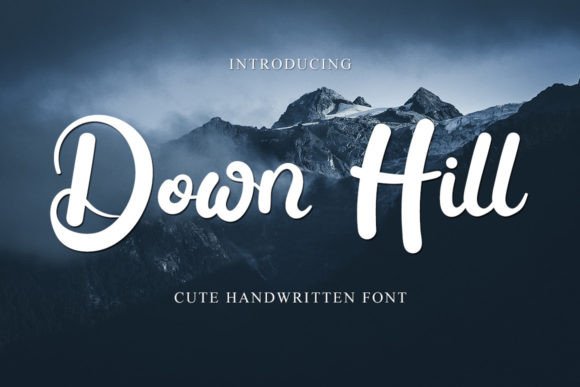
Prepare yourself to be captivated by Down Hill, an extraordinary script font family that exudes elegance and grace. With its fresh, clean, and refined appearance, Down Hill is a versatile font that will elevate any project, whether formal or informal. Created by the talented Eddygoodboy, this remarkable font is a true masterpiece that will add a touch of sophistication and joy to your designs.
Immerse yourself in a world of creativity as you explore the endless possibilities that Down Hill has to offer. This versatile font is perfect for a wide range of projects, including wedding invitations, logo designs, branding materials, social media graphics, and much more. Its beautiful flowing lines and delicate curves will add a timeless charm to any project, leaving a lasting impression on your audience.
With Down Hill, you can effortlessly create elegant and captivating wedding invitations that reflect the joy and romance of your special day. Its beautiful script style will add a touch of romance and sophistication to your invitation, setting the tone for a truly memorable celebration.
But Down Hill's versatility doesn't stop there. This remarkable font is also perfect for creating stunning logo designs. Its clean and modern lines will create a logo that is both eye-catching and memorable, helping your brand stand out from the crowd. Whether you're a small business owner, a creative entrepreneur, or a passionate designer, Down Hill is the perfect font to elevate your brand identity.
Unleash your creativity and explore the world of branding with Down Hill. This versatile font will add a touch of elegance and sophistication to your marketing materials, helping you create a strong and consistent brand image. From business cards and brochures to website designs and social media posts, Down Hill will help you leave a lasting impression on your customers and establish a strong connection with your brand.
Step into the world of social media and let Down Hill captivate your audience. With its charming and eye-catching look, Down Hill will make your social media posts stand out from the crowd. Create stunning graphics, eye-catching quotes, and captivating promotional materials that will capture the attention of your followers and leave a lasting impression.
Down Hill is more than just a font; it's a tool that will empower you to express your creativity and make your designs shine. Its versatility, elegance, and timeless beauty will transform your projects into works of art. So why wait? Embark on a creative journey with Down Hill and let your designs speak volumes. Experience the joy of creating with a font that will elevate your projects to new heights.